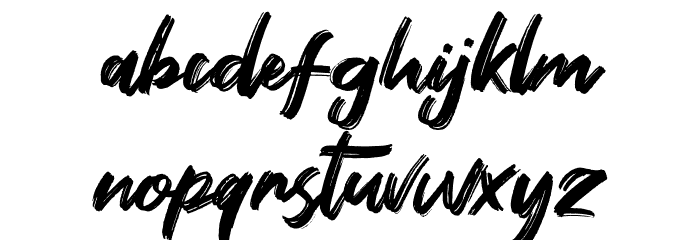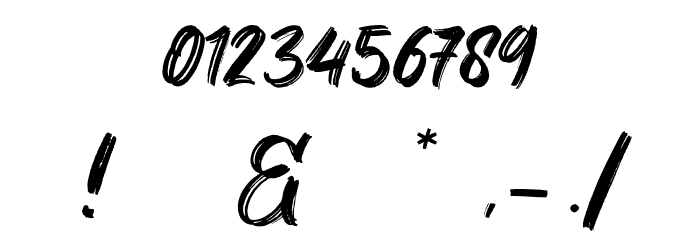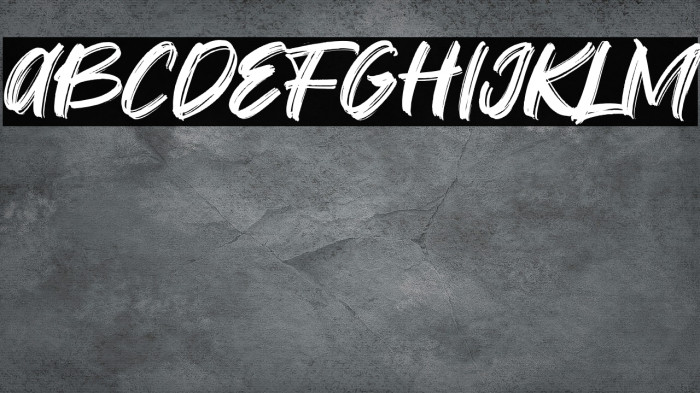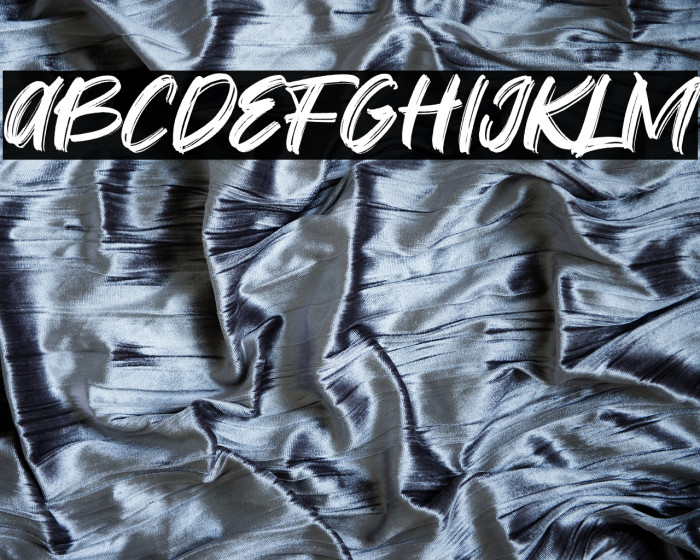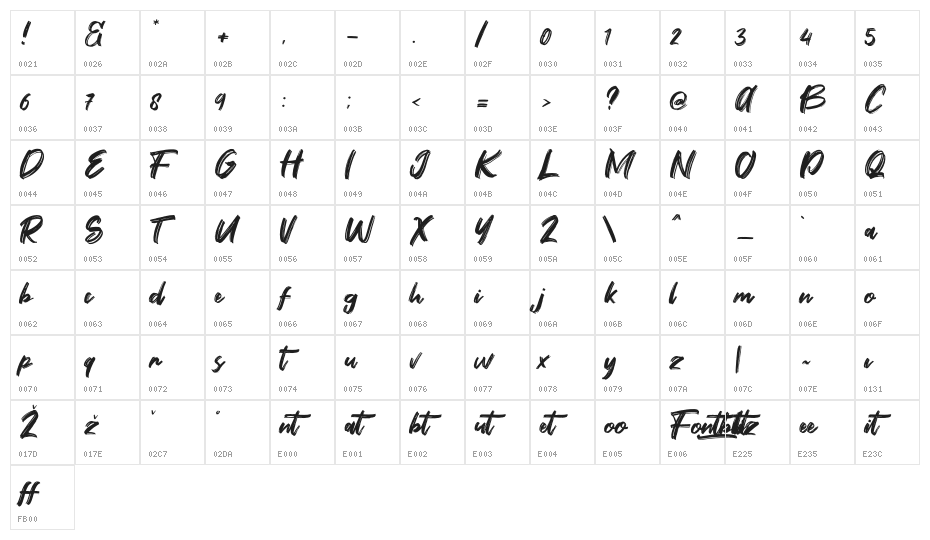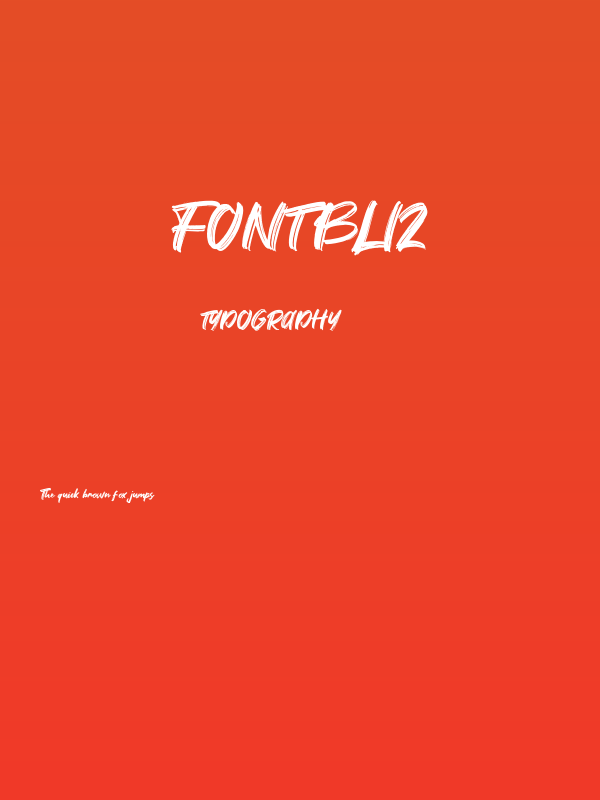
Fontbliz Font
This font features a bold, expressive brush style with dynamic strokes and a hand-painted appearance. The letters are characterized by their energetic and fluid forms, giving a sense of movement and creativity. The uppercase and lowercase letters maintain a consistent style, with slightly exaggerated curves and angles that add to the font's artistic flair. The numbers and special characters follow the same design principles, ensuring a cohesive look across all elements. This font's unique style makes it stand out, perfect for projects that require a touch of personality and flair.
A bold, expressive brush-style font with dynamic strokes and a hand-painted look.
- Proposed Projects: Ideal for branding, posters, artistic projects, and any design requiring a creative and energetic touch.